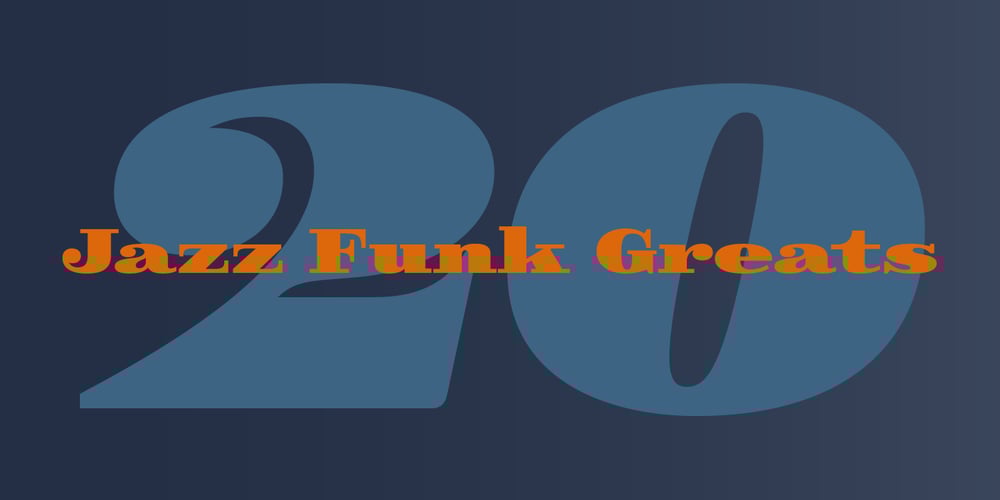
Skope Font Family was designed by José Manuel Urós and published by Type-Ø-Tones. Skope contains 2 styles and family package options. Skope is an experiment in horizontal stress and also a recreation of the extreme lettering style of comic masters such as Josep Coll or Manuel Urda from his cartoons in the pages of the classic TBO (Barcelona, Spain, 1917-1998) or our contemporary favorites Francesc Capdevila -Max- and Joost Swarte. The proportions and some of the fundamental features of Skope are drawn from the features of the masthead of the magazine Triunfo (Valencia, Spain, 1946-1982). The inspiration for the numbers comes from a kitchen clock from the 70’s photographed in the distance in a second-hand shop.